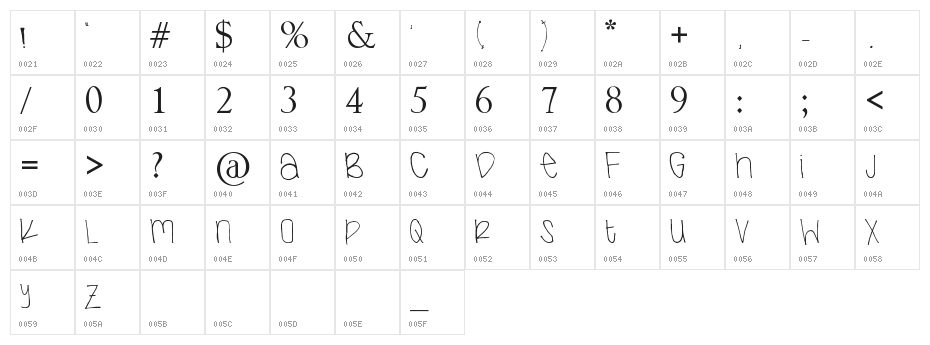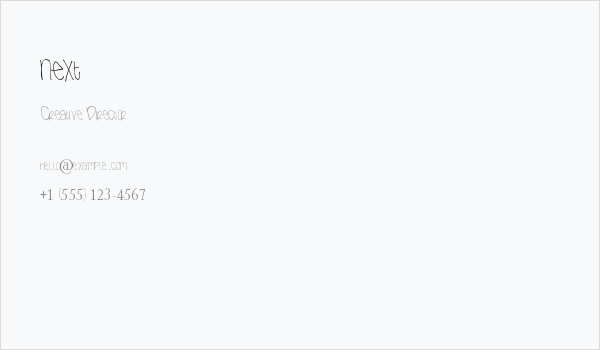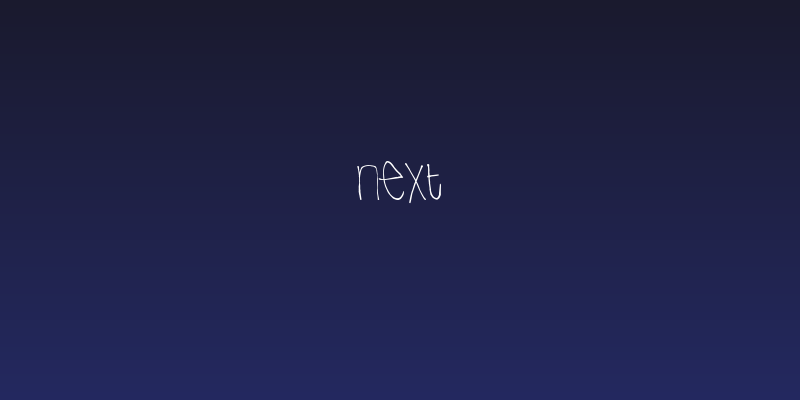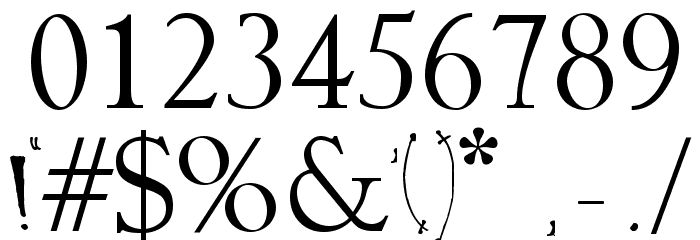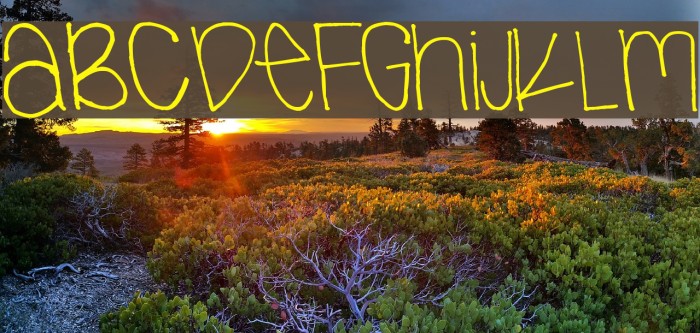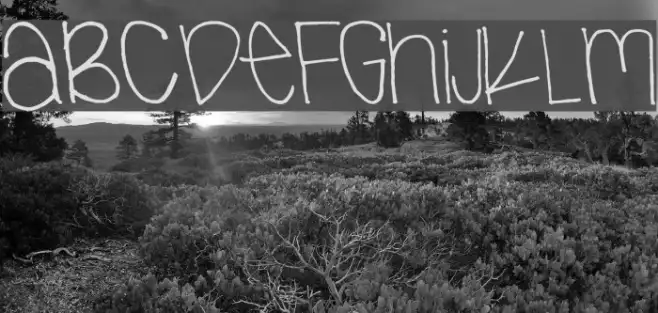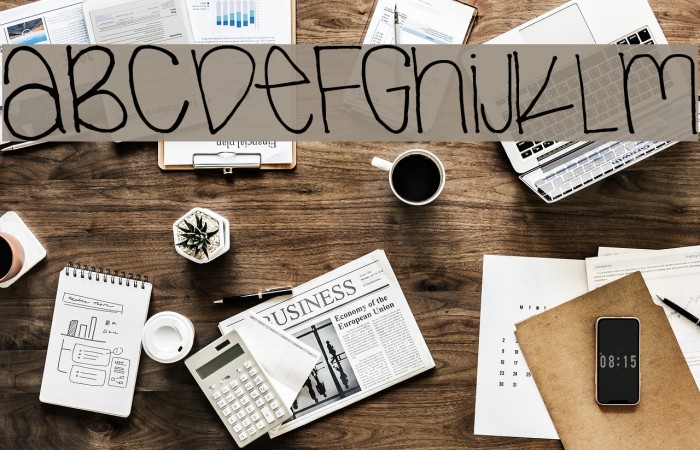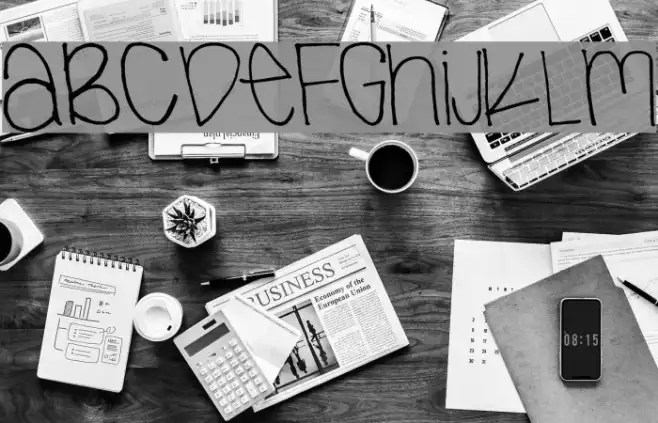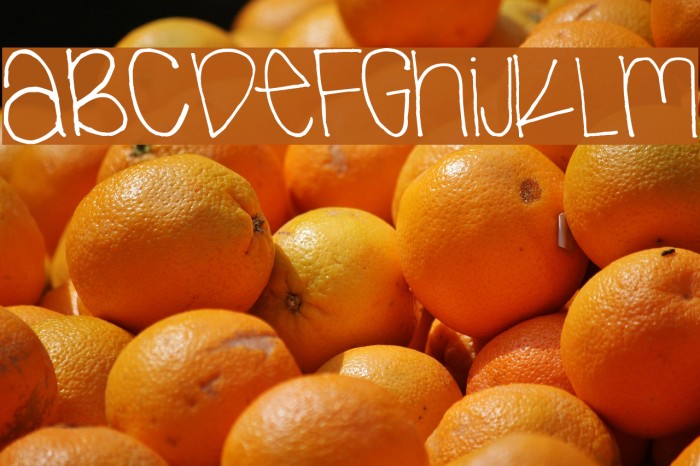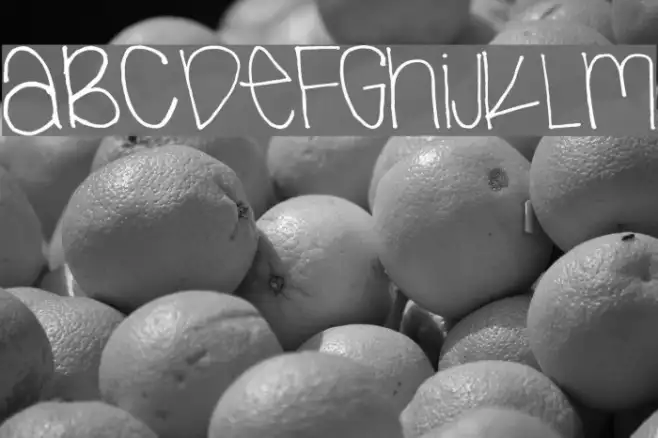
next Font
next Description
This font features a playful and whimsical handwritten style, characterized by its irregular, slightly wavy lines and casual appearance. The uppercase letters are tall and narrow, with a distinctively quirky flair, while the lowercase letters maintain a consistent, flowing style that complements the uppercase set. The numerals are bold and rounded, providing a strong contrast to the more delicate letterforms. Special characters are creatively designed, adding to the font's overall charm. This font's unique personality makes it ideal for projects that require a touch of fun and creativity.